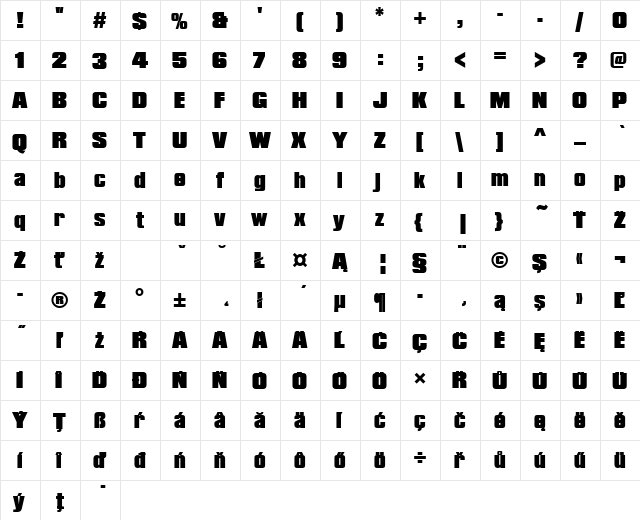
CompactaPEEBla Regular
Design Context for CompactaPEEBla Typeface
CompactaPEEBla offers clean, dependable letterforms without strong stylistic allegiance, making it a practical choice for designers who need flexibility. The condensed width makes it efficient for tight spaces without sacrificing legibility.
Pro Tip: Use CompactaPEEBla in both headline and body roles to test its range before committing to a single application.